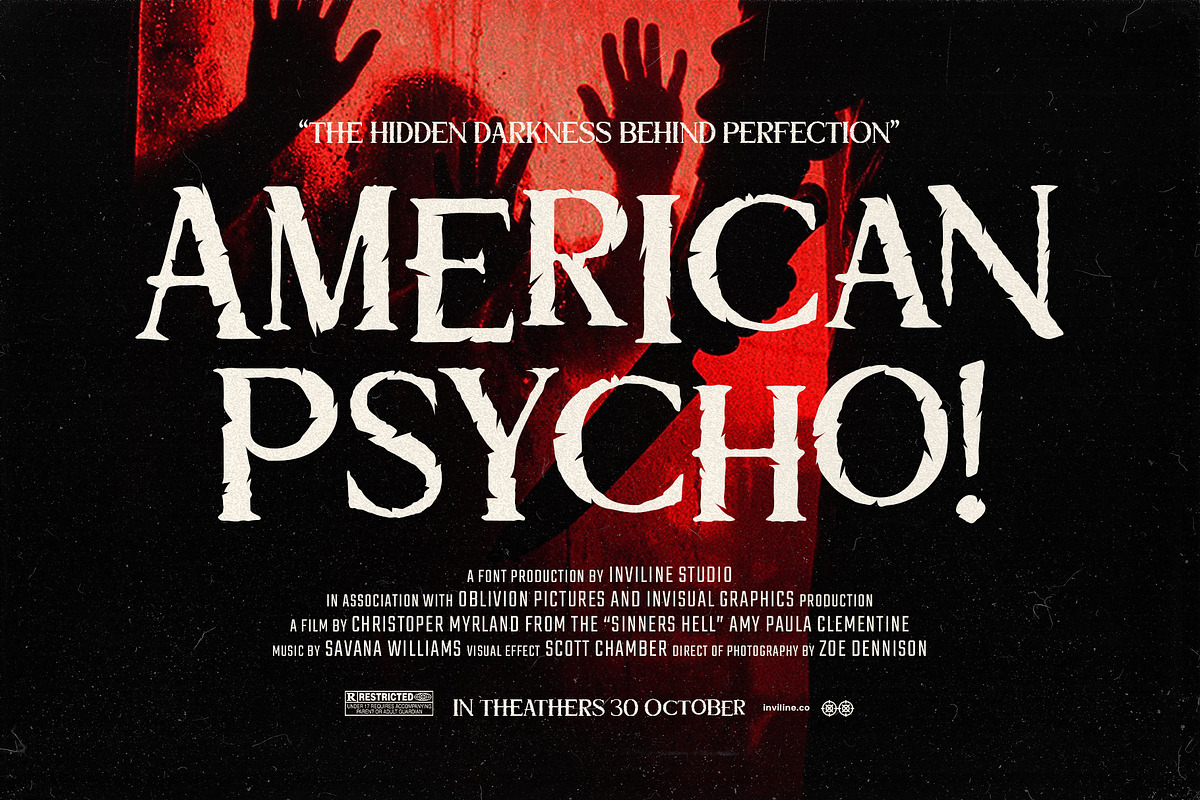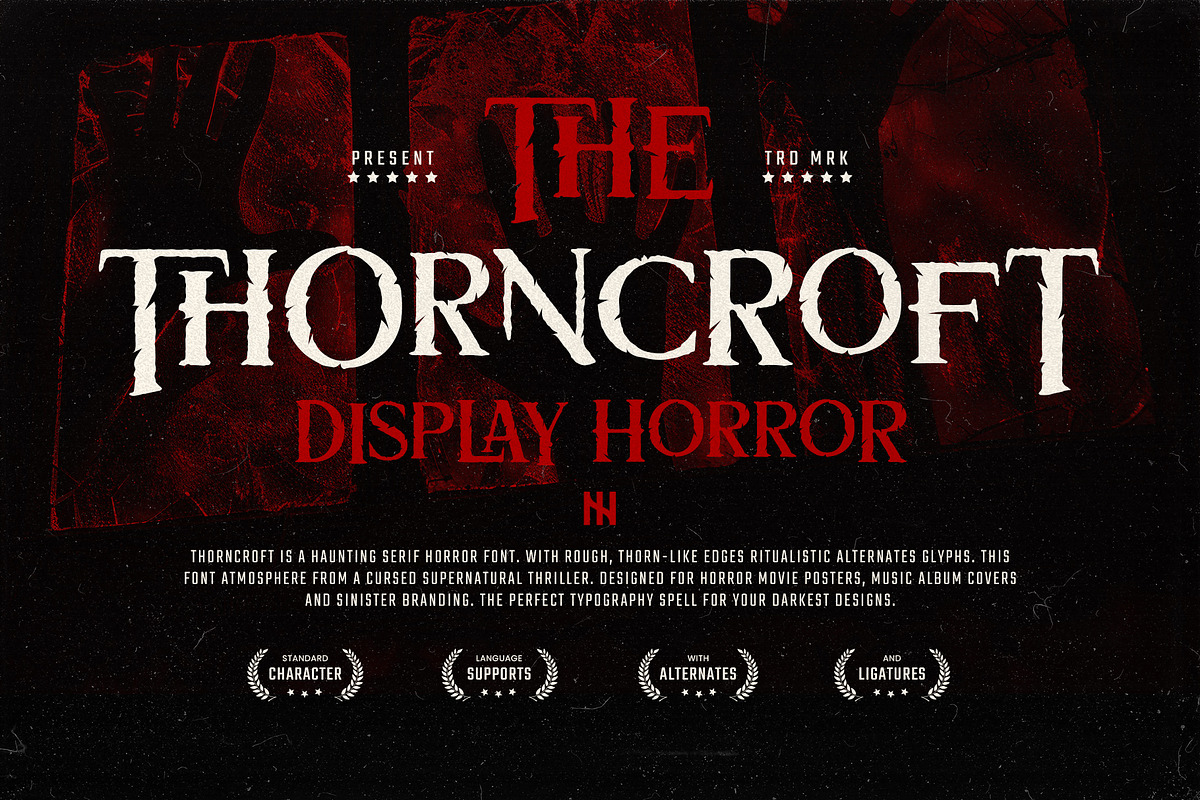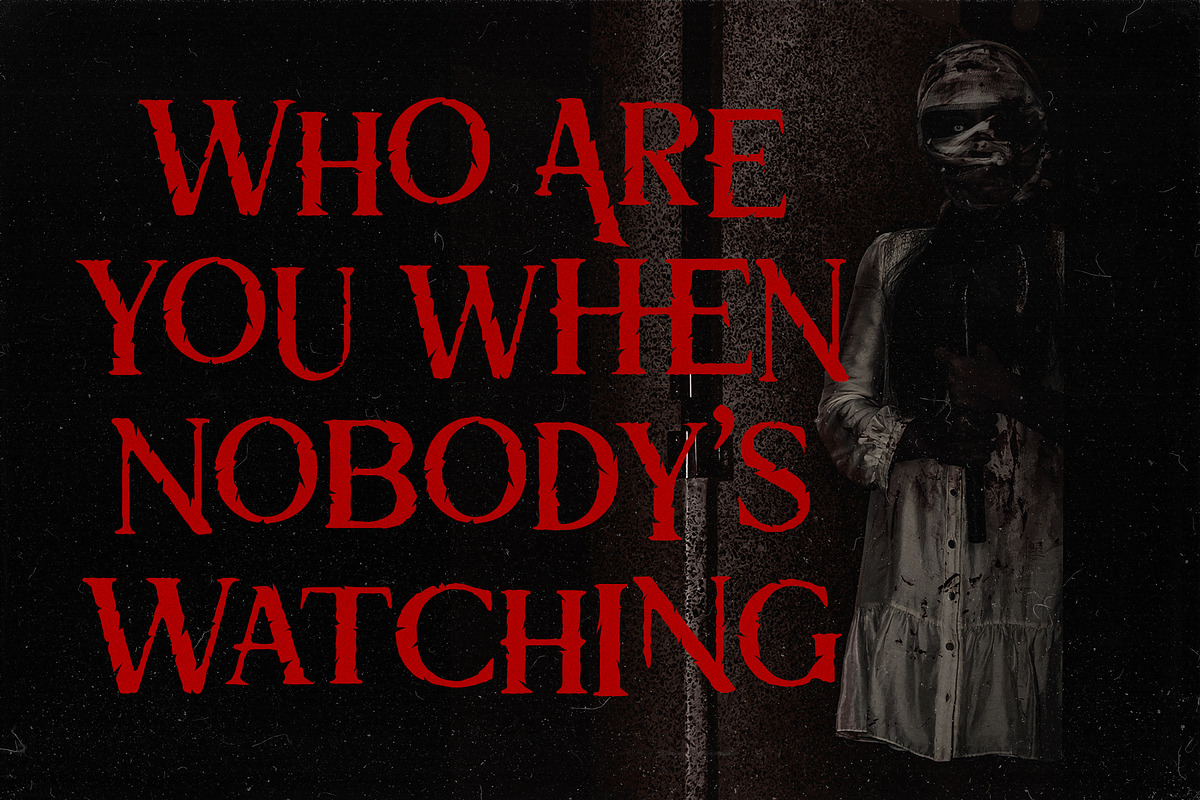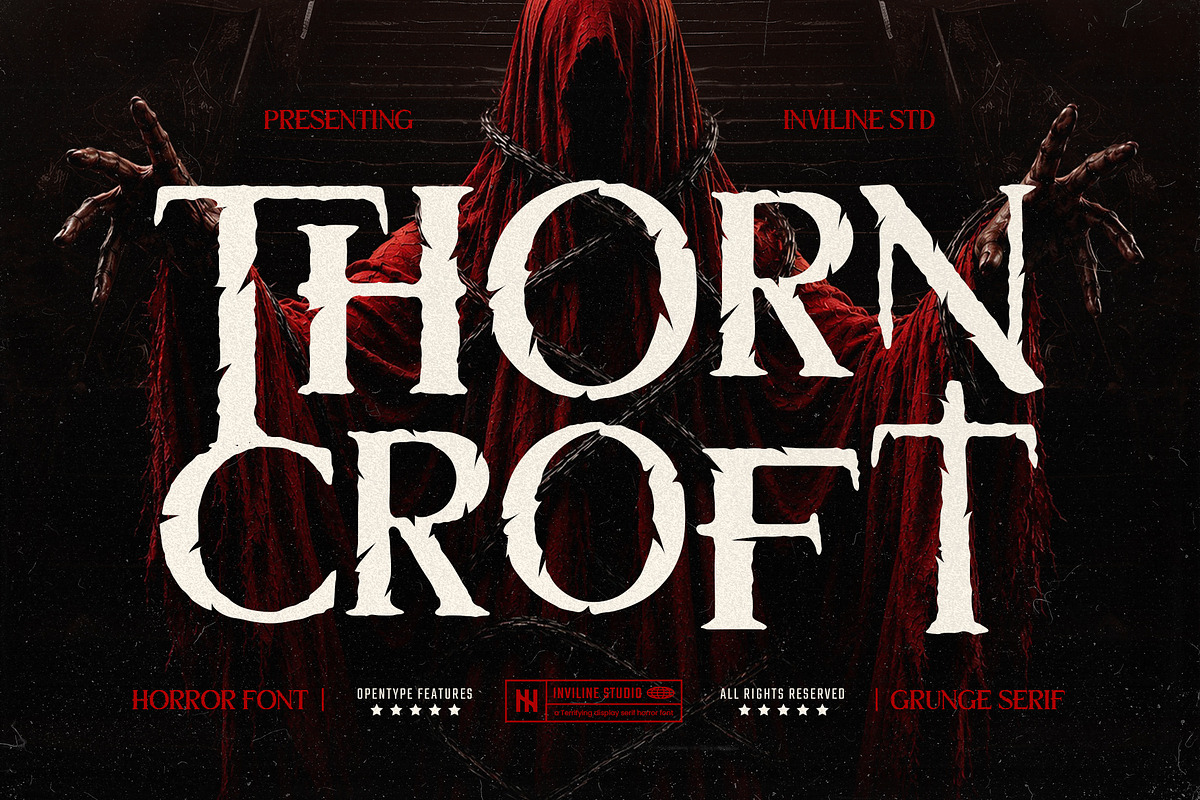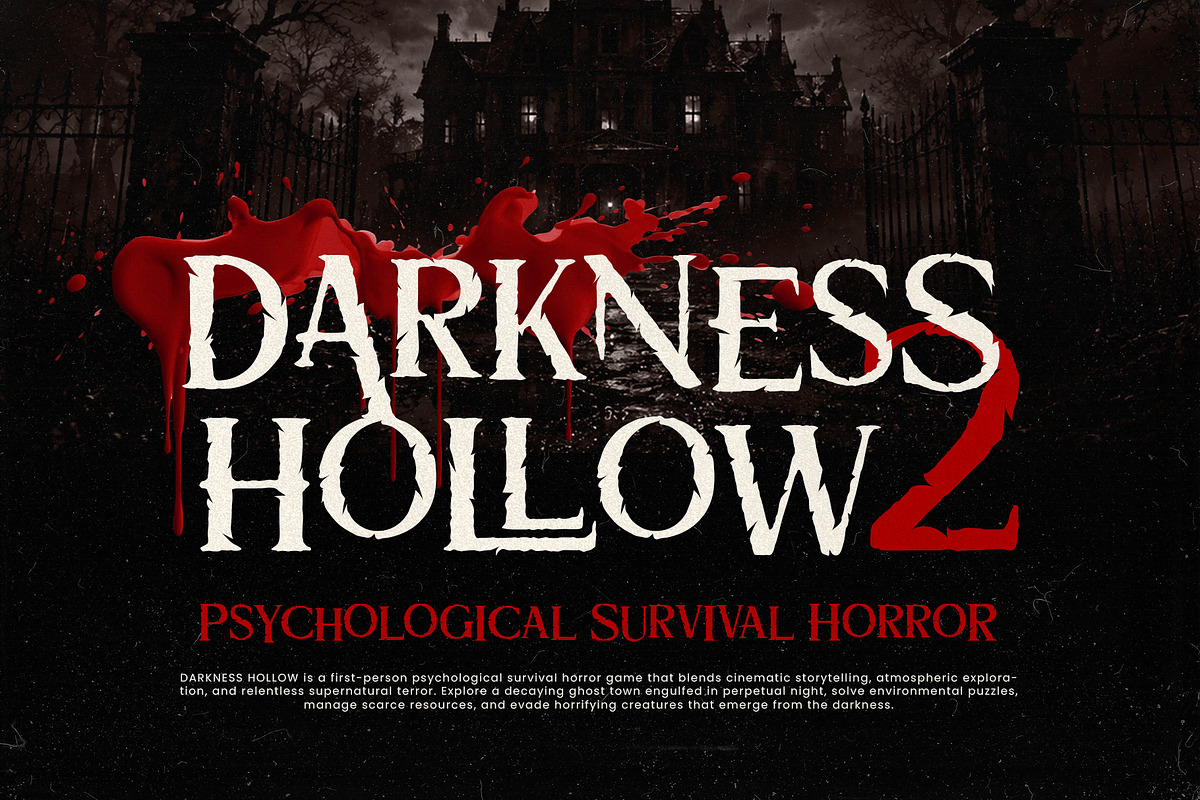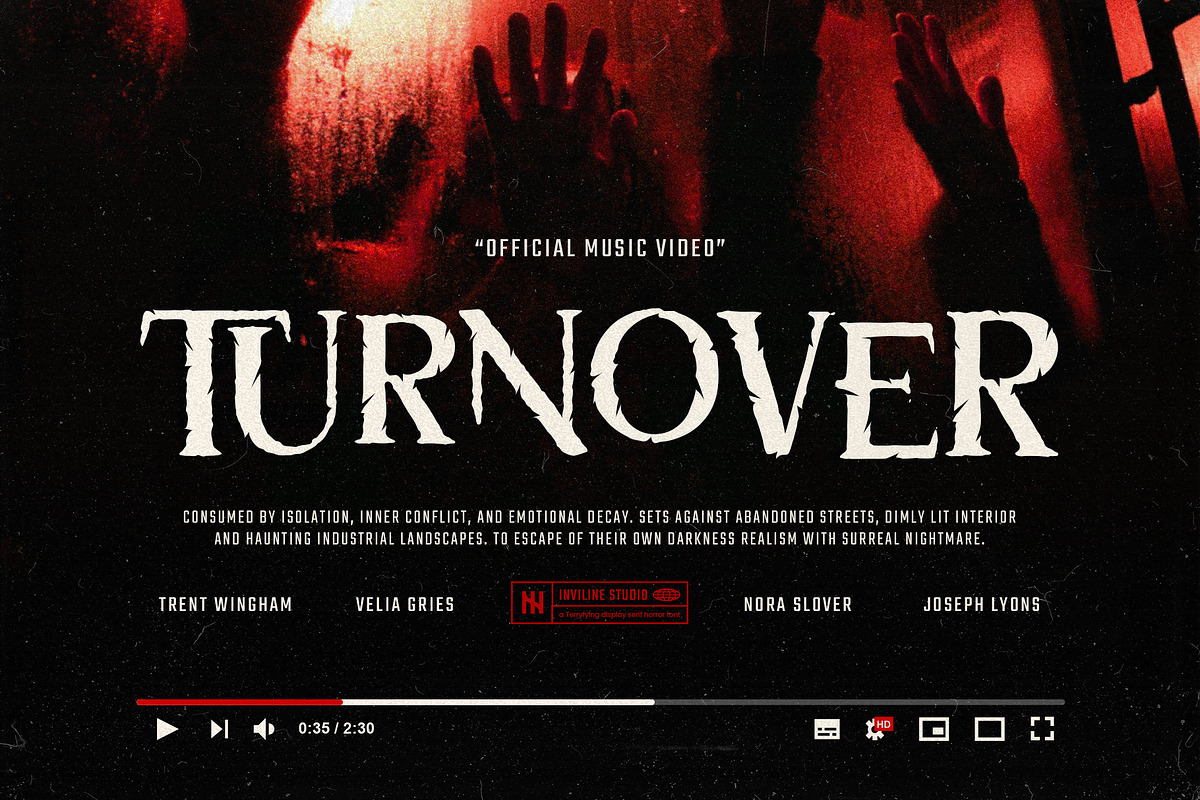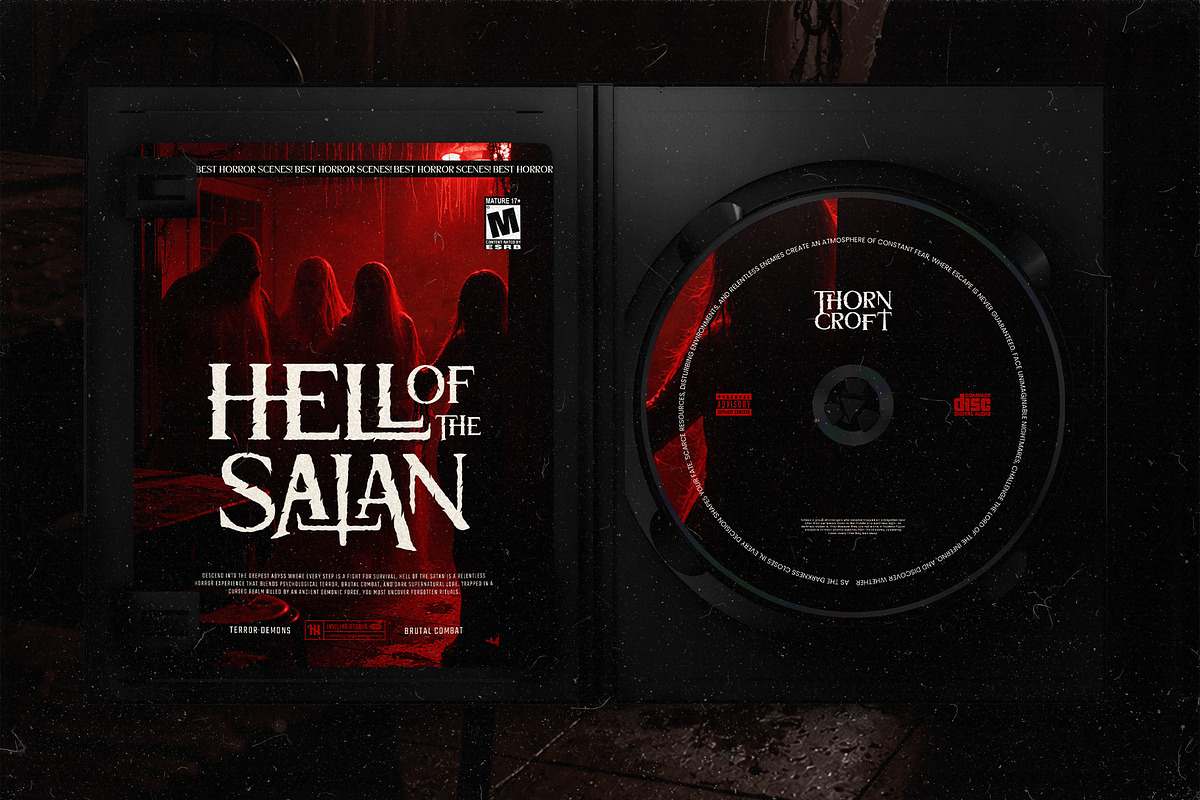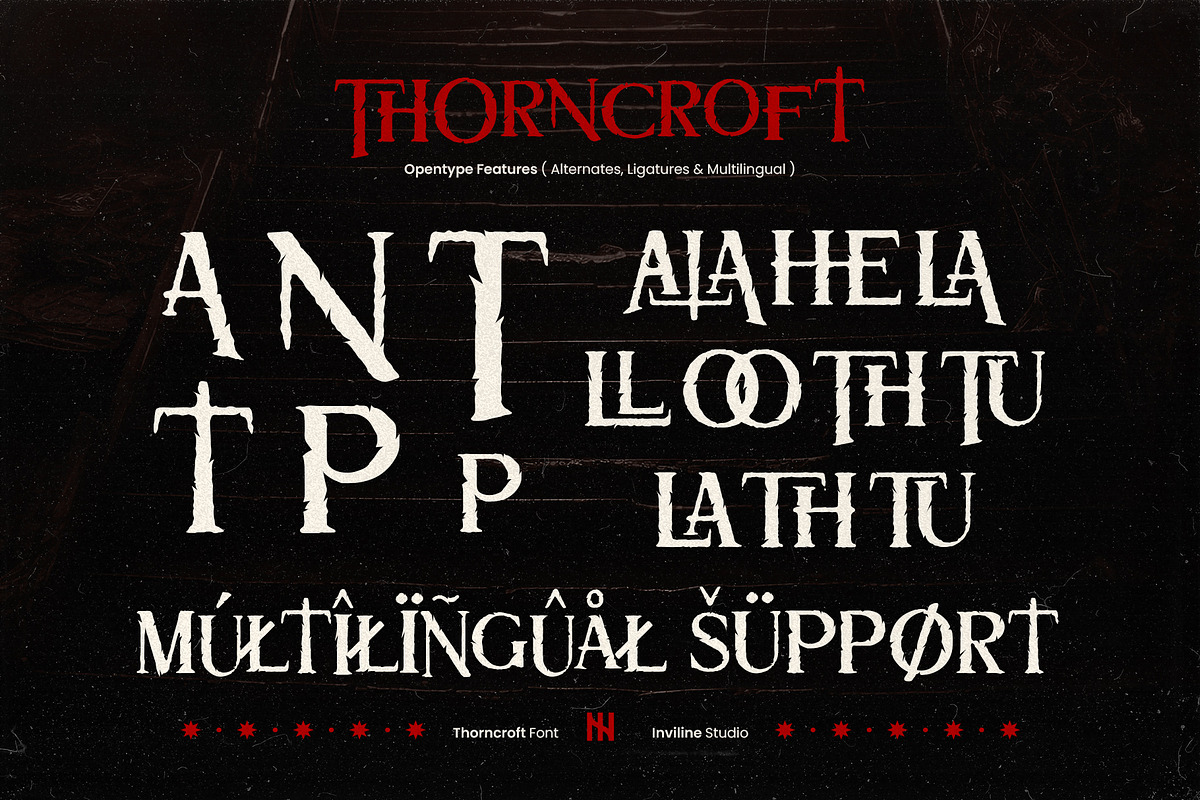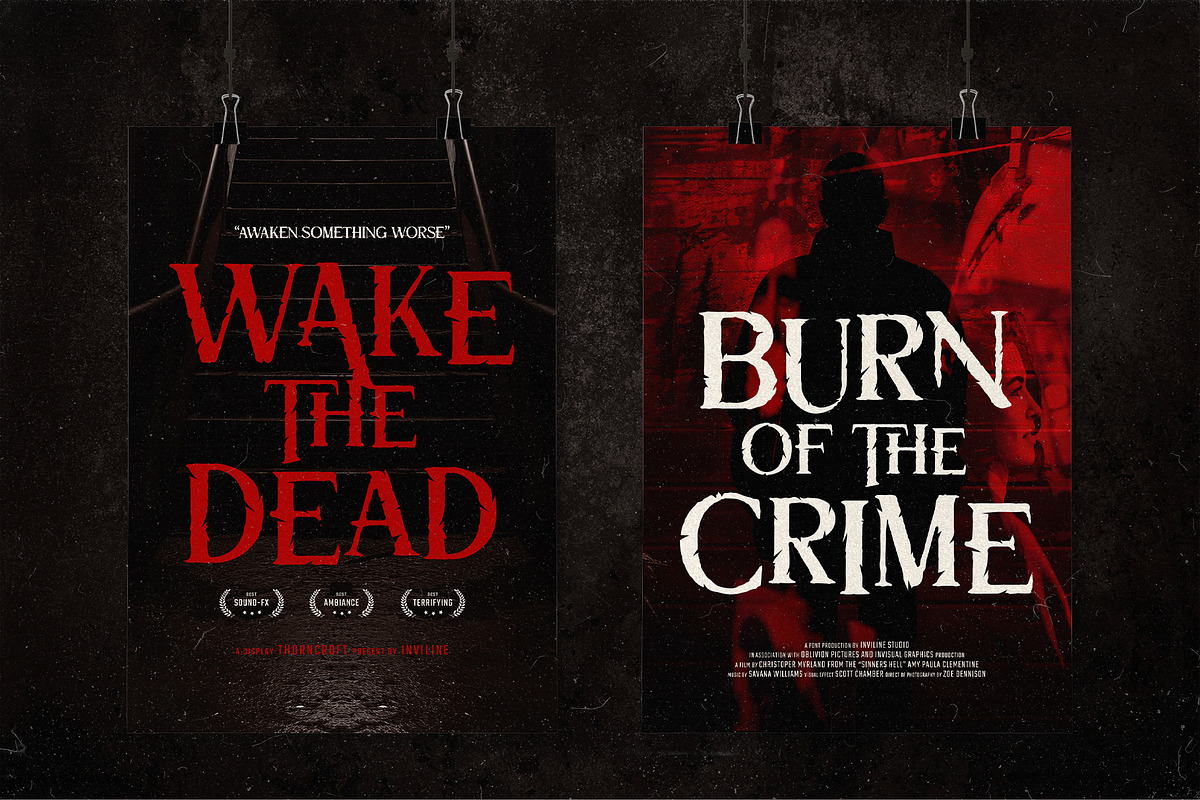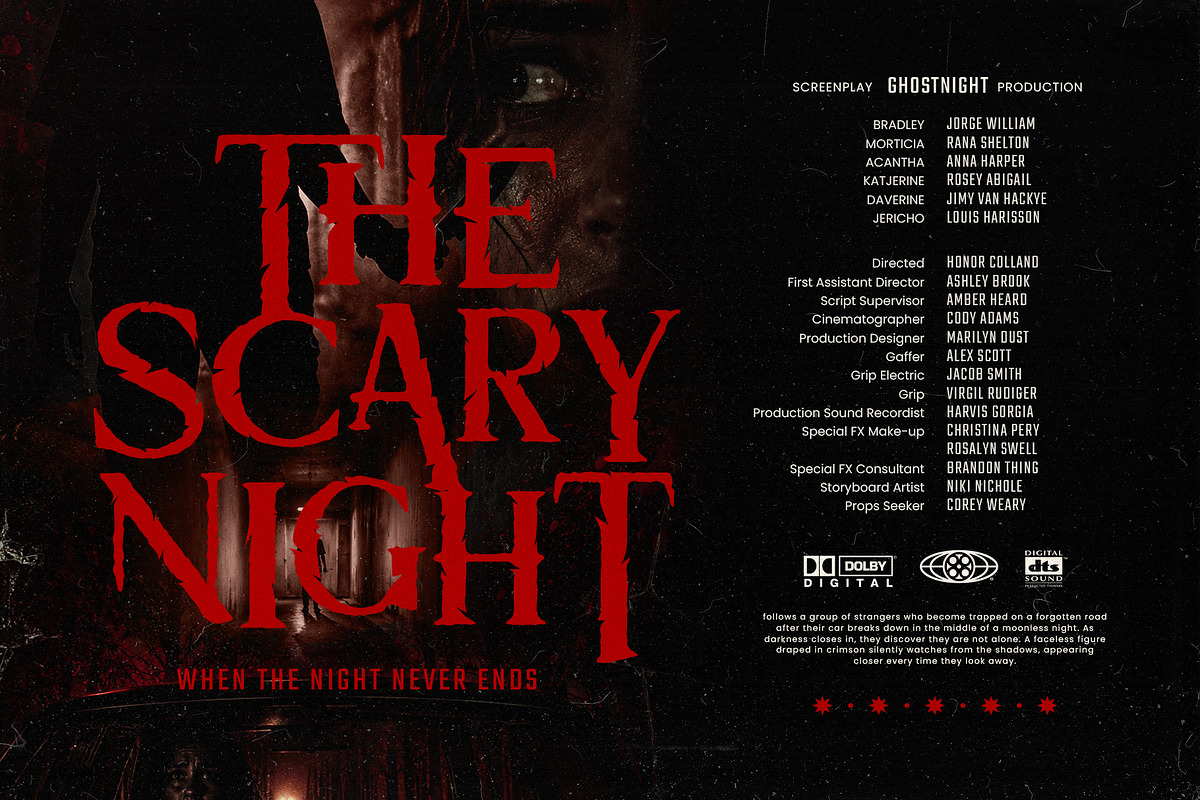
Thorncroft - Serif Grunge Horror
THORNCROFT HEX – Supernatural Horror Font
Thorncroft Hex is a haunting serif horror font crafted to channel dark magic, demonic lore, and vintage occultism into your typography. With rough, thorn-like edges and ritualistic alternate glyphs, this font conjures a chilling atmosphere straight from a cursed manuscript or supernatural thriller.
Designed for horror movie posters, cult book covers, and sinister branding, Thorncroft Hex blends elegance with eerie decay — the perfect typographic spell for your darkest designs. Whether you're summoning dread or casting mystery, this font is your grimoire.
Uppercase & Lowercase Letters
Alternates with ritualistic glyphs
Numbers, Punctuation, & Symbols
Horror Film Posters & Titles
Paranormal Book Covers
Dark Music Branding
Occult Packaging Design
Halloween Promotions